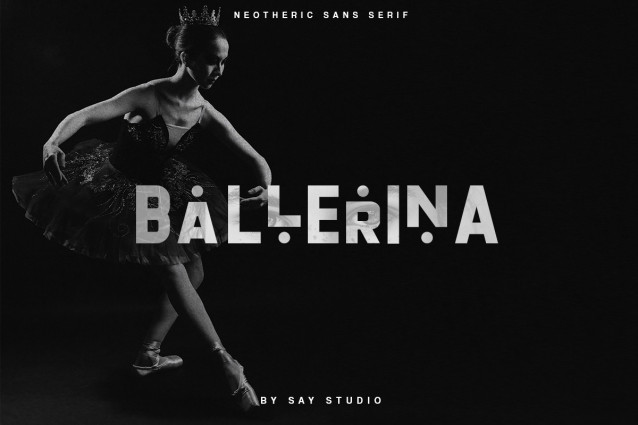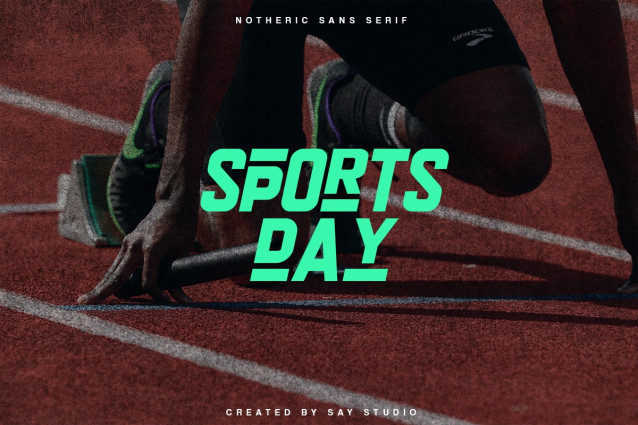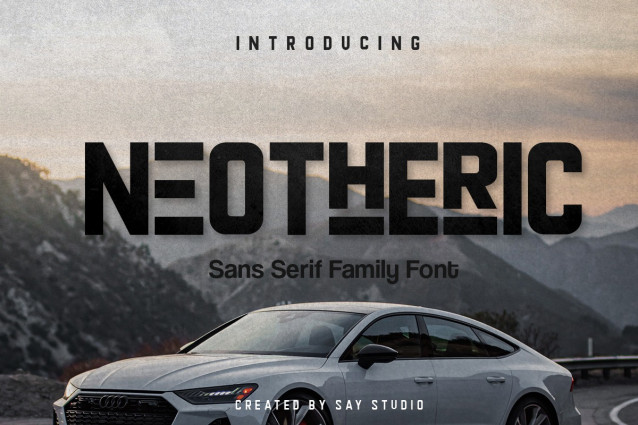
Neotheric Font
Neotheric Font is a powerful and sophisticated sans serif font family. And has 4 alternates type models that you can use according to your needs. That uncompromising sturdy style is felt through controlled letterforms and a modern twist. Balance of hard lines and smooth curves. Each font in the family is standalone, dynamic and authoritative in its own right.